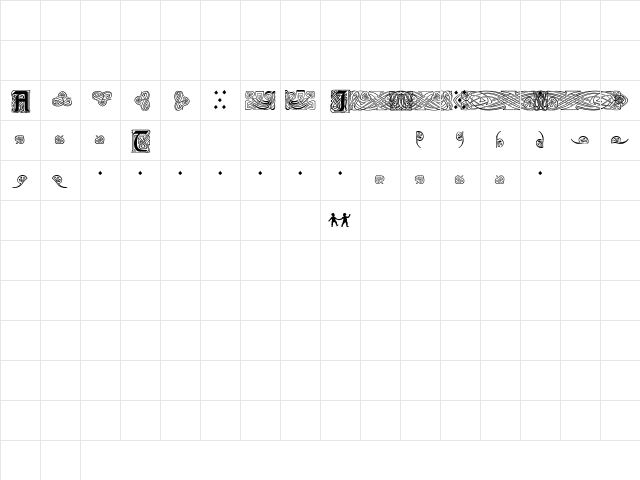
Augsburger Ornamente Regular
Design Context for Augsburger Ornamente Typeface
Augsburger Ornamente brings ornamental detail and strong personality to headlines and identities, where visual impact matters more than quiet functionality.
Font Pairing: Pair with a clean neutral sans-serif for body copy to let Augsburger Ornamente's character lead without overwhelming the composition.
Pro Tip: Use Augsburger Ornamente exclusively at display sizes — it was designed to be seen, not read at length. Let a neutral companion handle body copy.